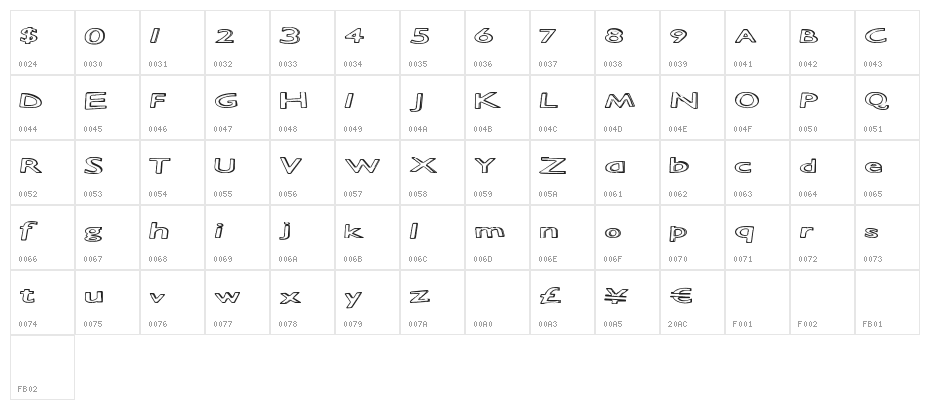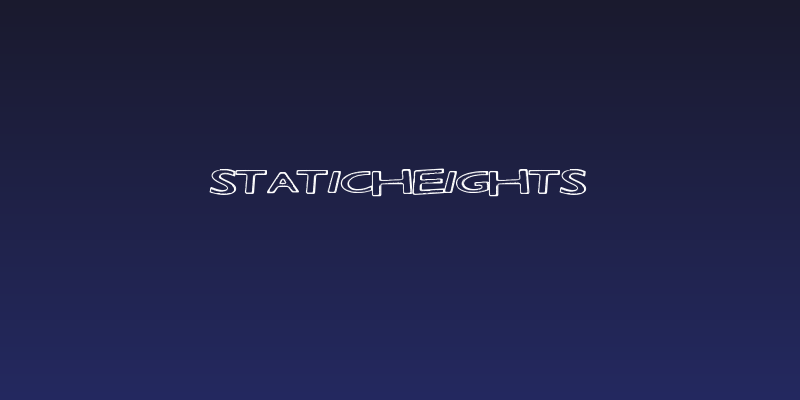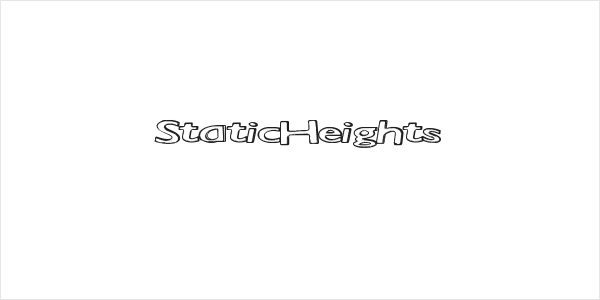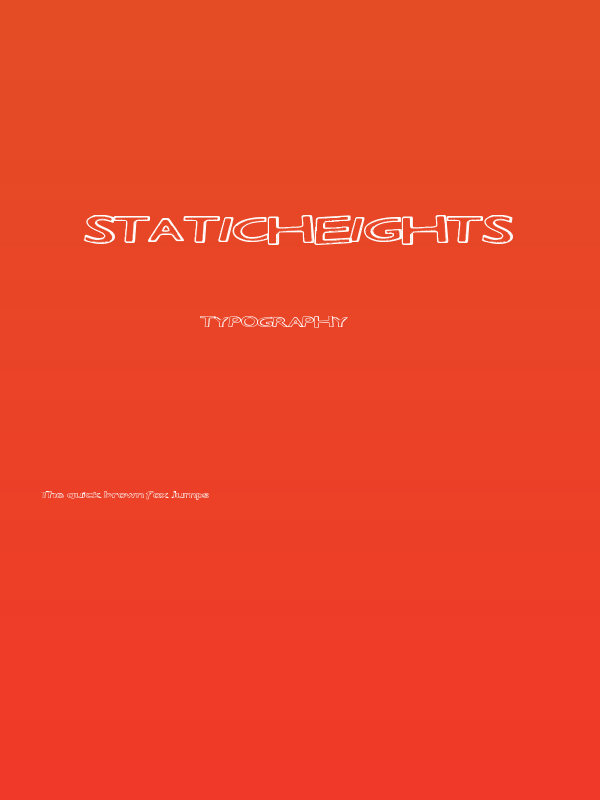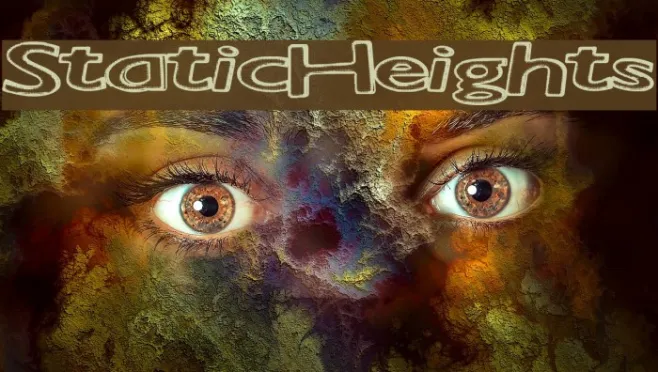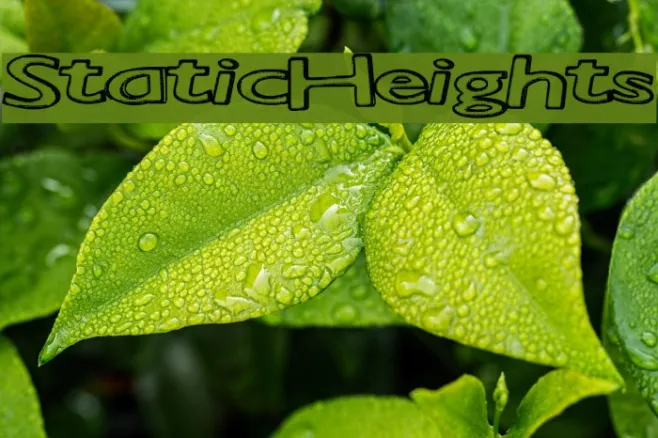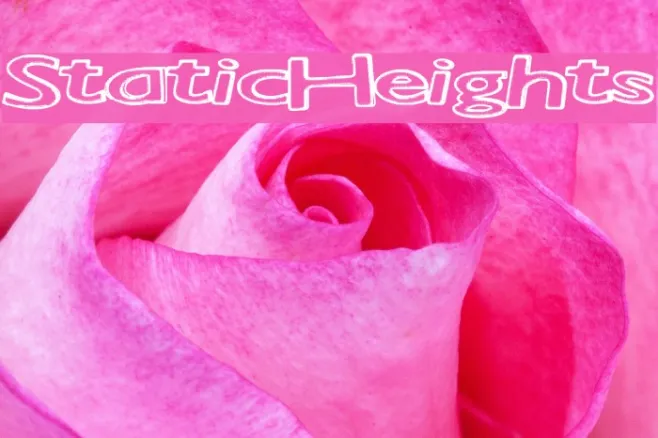
StaticHeights Font
StaticHeights Description
This font features a playful and dynamic style with a bold, outlined appearance. The characters are slightly slanted, giving a sense of movement and energy. The uppercase and lowercase letters maintain a consistent width, while the numbers and special characters follow the same design principles. The font's unique outline adds a layer of depth, making it stand out in various design contexts. Its boldness and distinct style make it suitable for eye-catching designs.
| Overall Style | Playful and Dynamic |
| Proposed Projects | Ideal for posters, logos, children's books, and any project requiring a fun and engaging typeface. |